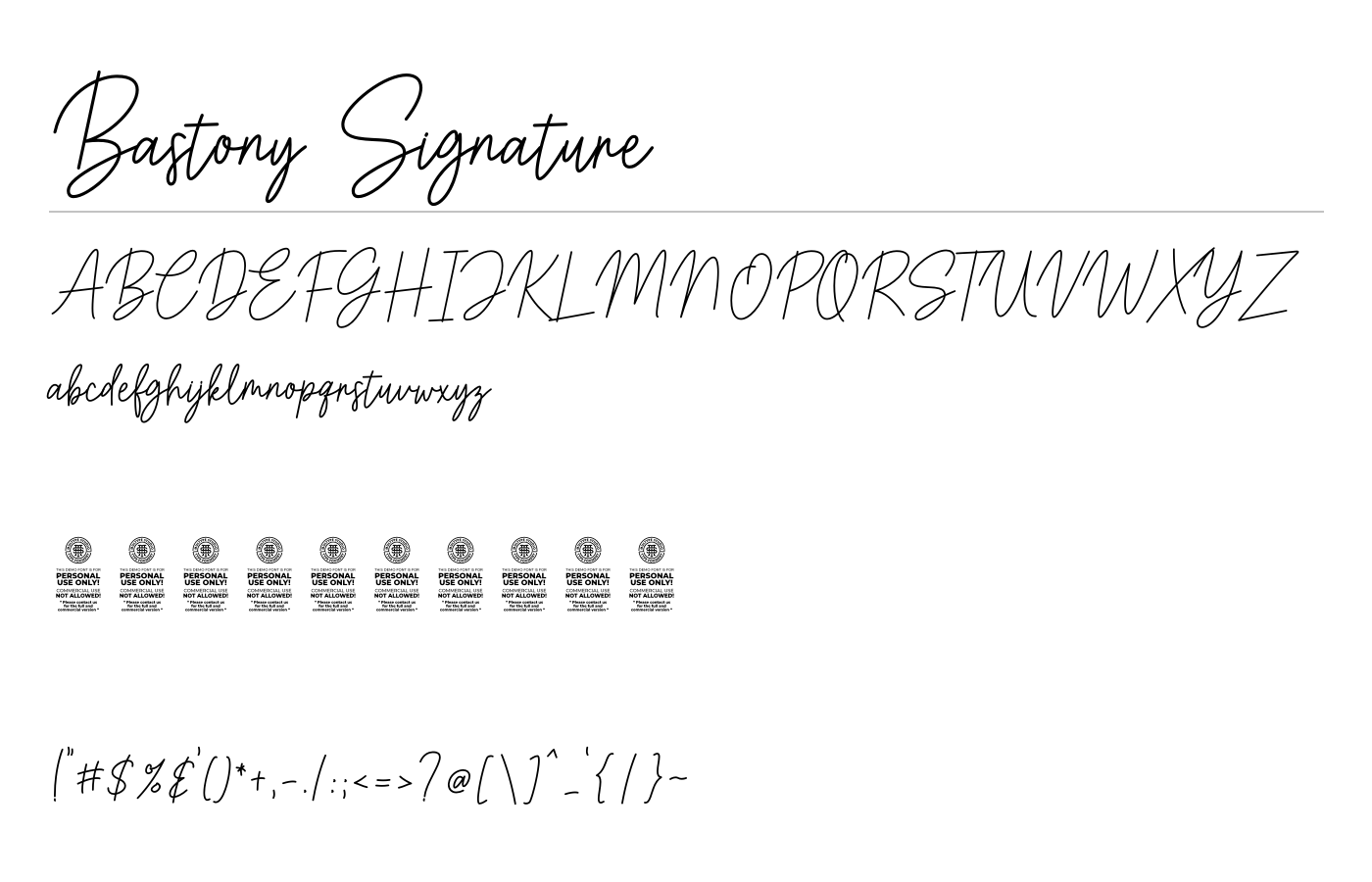
Bastony Signature is a delicate, modern script font that mimics natural handwriting with fine, flowing strokes and a light weight. Its slender, elegant letterforms convey a personal, sophisticated feel, making it perfect for branding, invitations, and stylish editorial design where a graceful, intimate touch is desired. This font excels in projects that aim to evoke warmth and elegance with a contemporary handwritten flair.
Bastony Signature Font
About Bastony Signature Font
| Font family | Bastony Signature Font |
| Designer | Mulia Yanto |